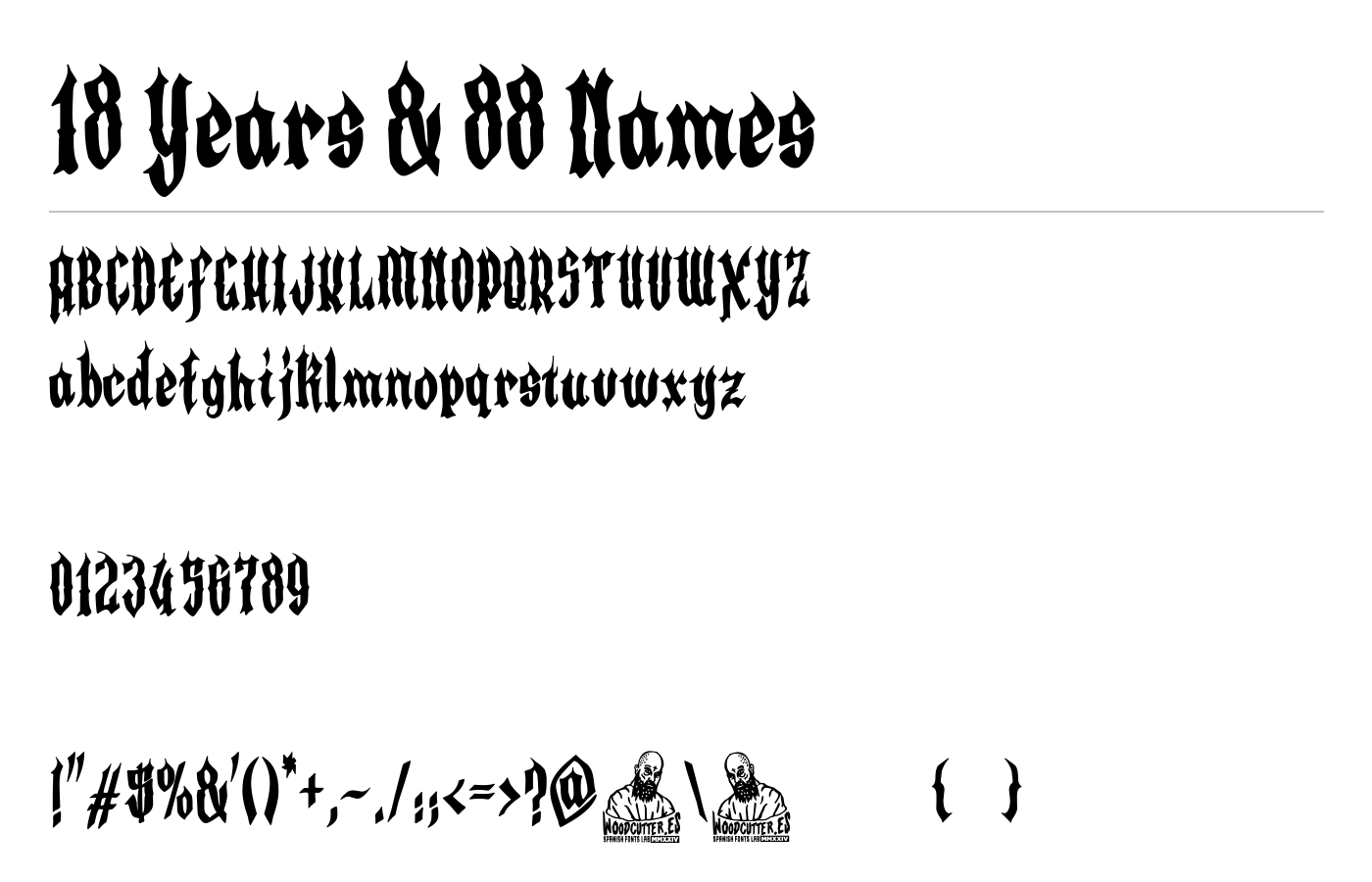
18 Years & 88 Names is a bold blackletter display font with sharp, angular strokes and a condensed, tall structure. Its vintage gothic style and high contrast between thick and thin lines give it a dramatic, intense personality, making it ideal for creating a strong, rebellious look in logos, posters, and headlines. This font works best where a historic or edgy vibe is desired, lending an old-world, underground feel to fashion branding or creative editorial projects.
18 Years & 88 Names Font
About 18 Years & 88 Names Font